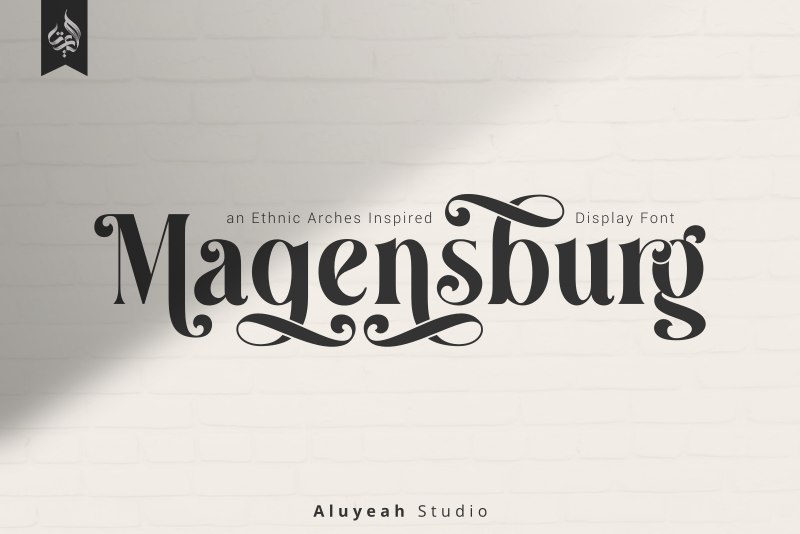
Preview and download Magensburg Font. Created by Aluyeah Studio in Basic Serif styles with Free for personal use license.
To get results like the preview just type M.8ag.3en.3sb.6urg A Font by Aluyeah Studio Please read this before using the font. This version is a Personal to Use Only. If you wish to use it for commercial use, you need to purchase a premium license. Hallo alle! Magensburg is an ethnic arches inspired display font. This font was carefully crafted and inspired ethnic arches in the world. In general, it creates a luxurious and mysterious look in design. Super Easy to Use alternates - It's OpenType support but you can easly call alternates character using special combination like A.2 R.4 h.3 etc so you dont need special software Need for commercial use? https://aluyeah.com/product/magensburg/ Buy me a coffee? https://paypal.me/aluyeahstudio Email me aluyeahstudio@gmail.com |